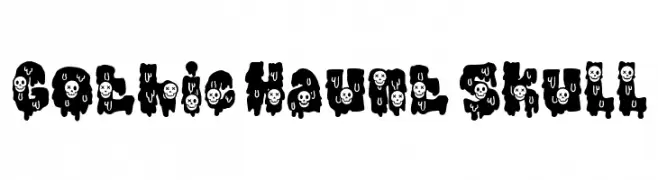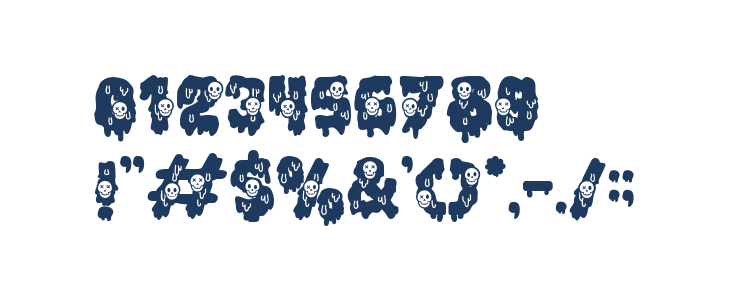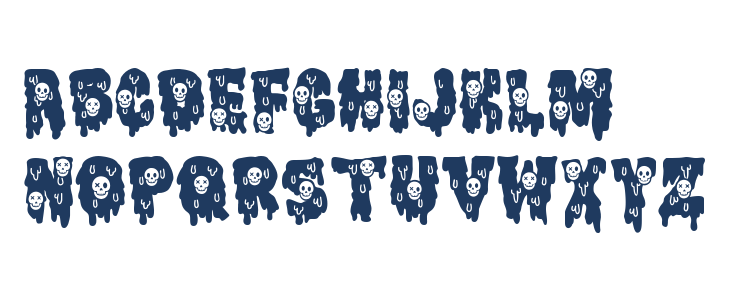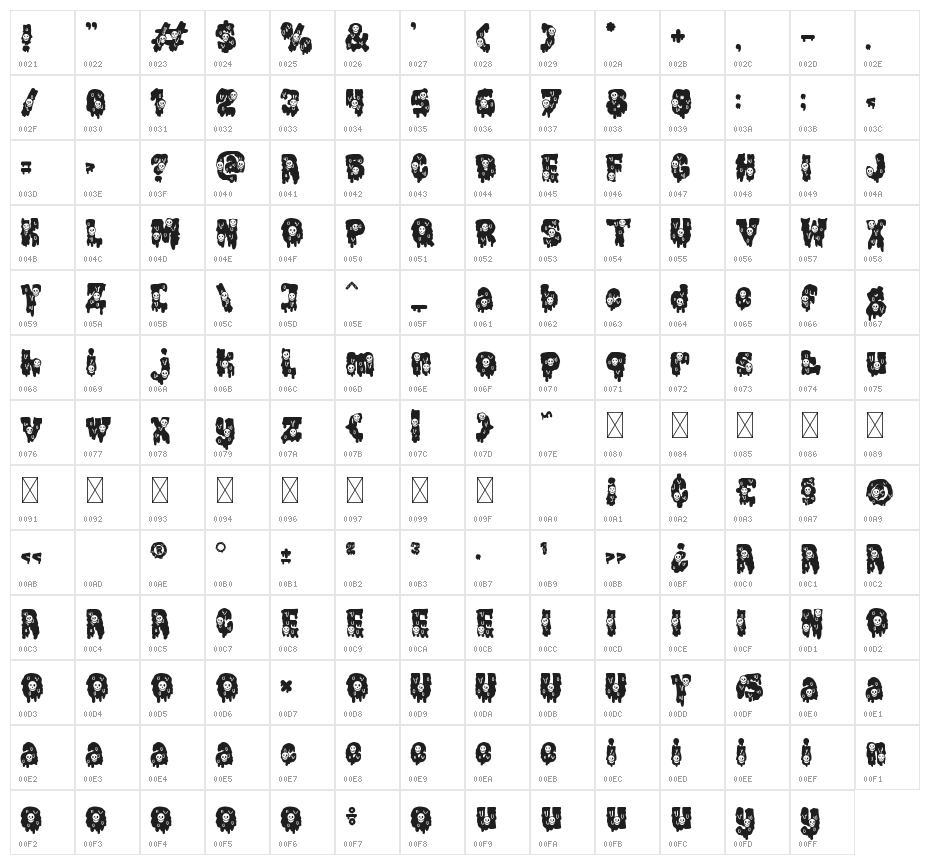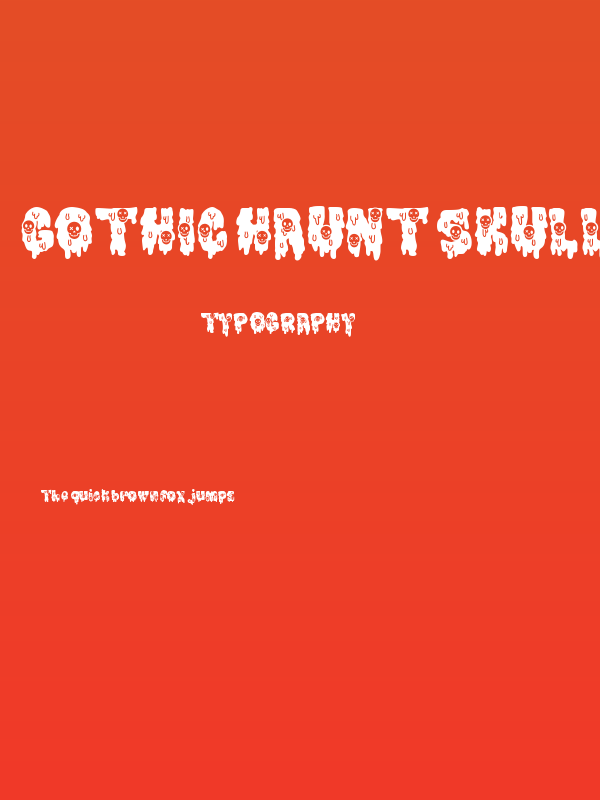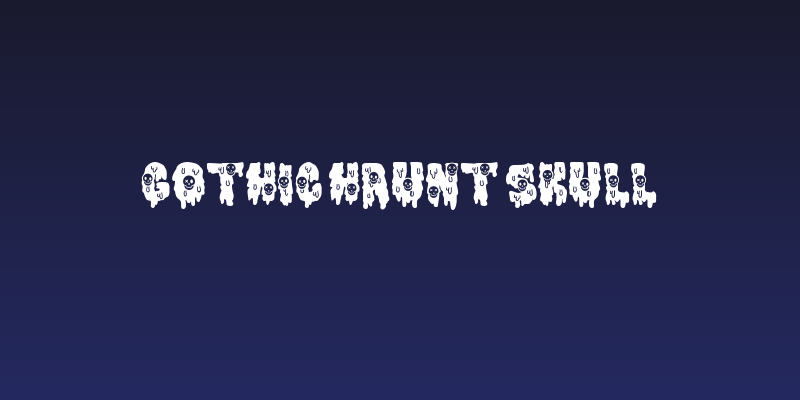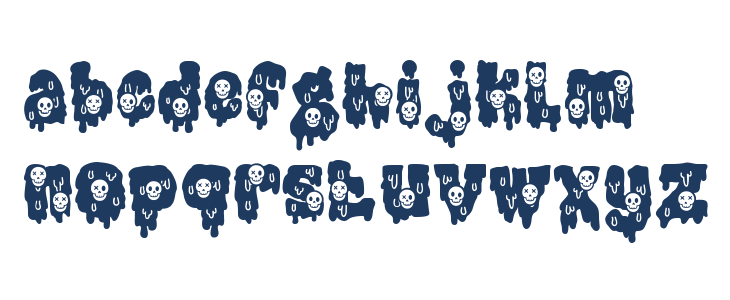
Gothic Haunt Skull Font
Gothic Haunt Skull Description
A highly decorative, spooky display font featuring bold, dripping letterforms with embedded cartoon skulls, evoking a haunted or horror-themed aesthetic. The characters are irregular, with playful yet eerie details, making them stand out for themed designs.
| Overall Style | Decorative, Spooky, Playful |
| Use Case | Headlines, Posters, Event Flyers, Themed Logos |
| Proposed Projects | Halloween posters, haunted house flyers, spooky party invitations, horror movie titles, themed merchandise. |